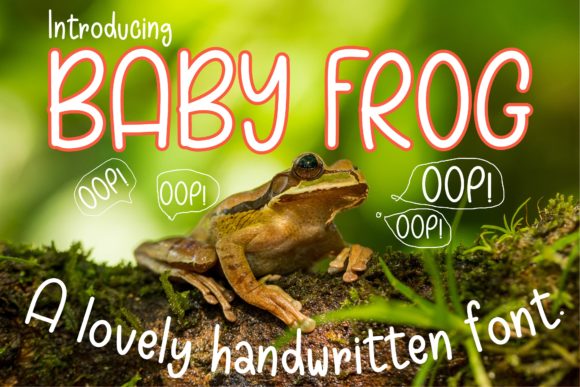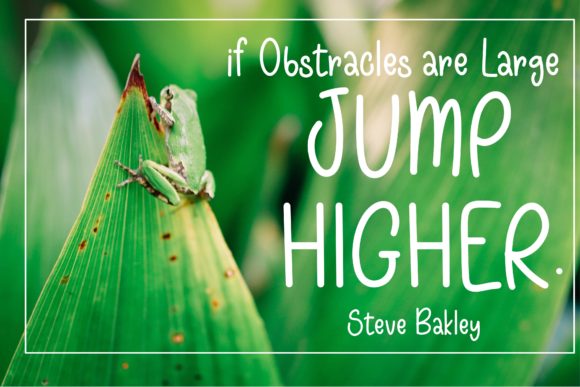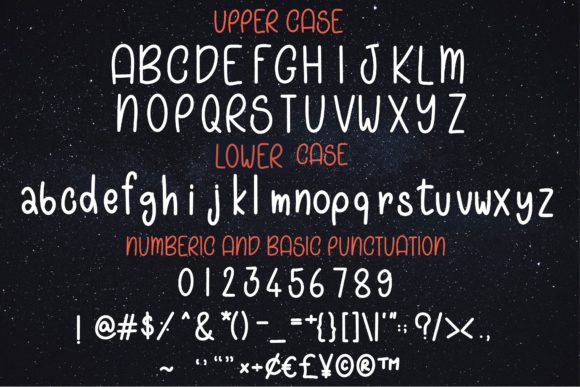
Baby Frog Font
About Baby Frog Font
Baby Frog is a cute and casual handwritten font with an incredibly friendly feel. Whether you’re looking for fonts for Instagram or calligraphy scripts for DIY projects, This font will turn any creative idea into a true piece of art!